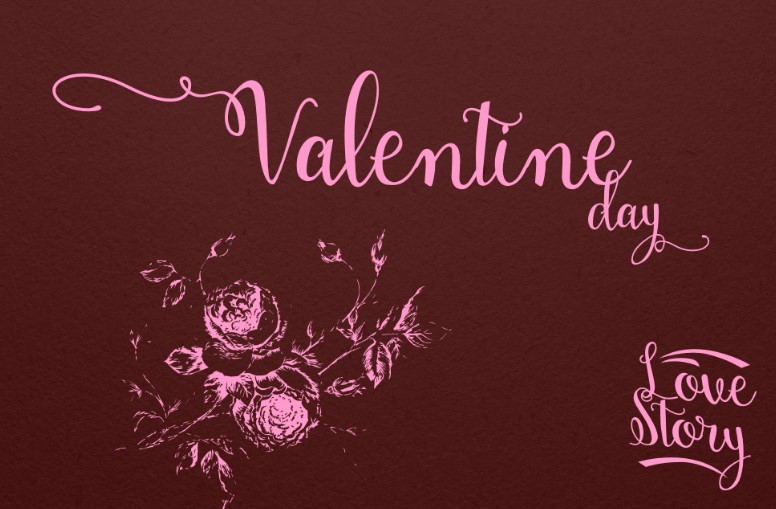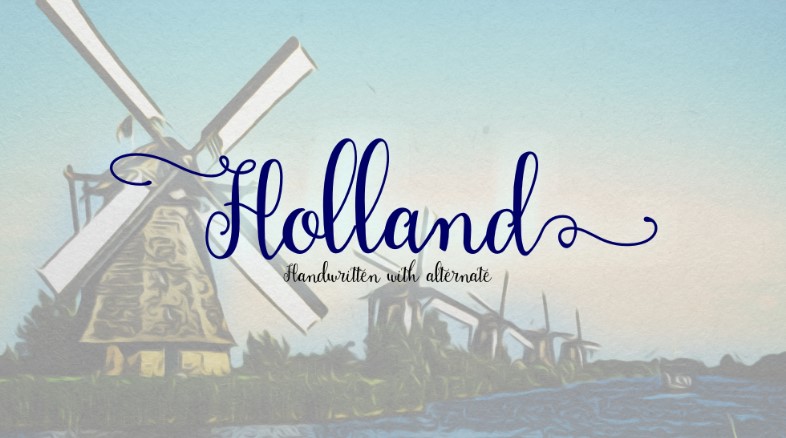
Holland Handwriting Font
Holland Handwriting Font is famous for its script typeface. This is considered as the best text generator and it is also known as the canonatia font. This super font has made notably in a top-notch type maintaining an opentype outline the form. That is a glamour this is similar to the hammer font.
So, because of this feature, you could use this font for a big marketplace place. This font is finished in replica and pastes competencies. This typeface is likewise pretty rated in the google fonts. Holland Handwriting Font Free The completes letters collectively with this financial organization arial narrow font function pinnacle-notch satisfied.